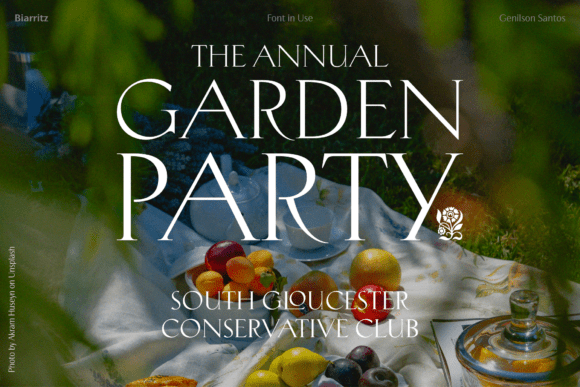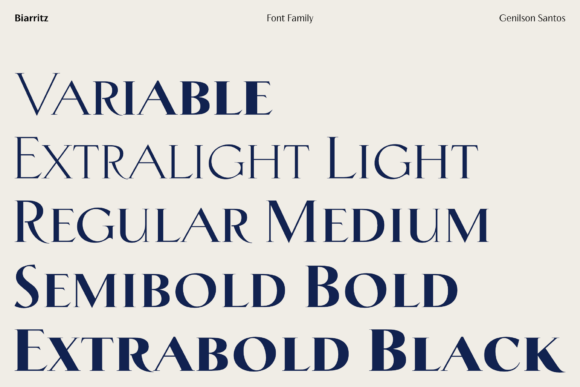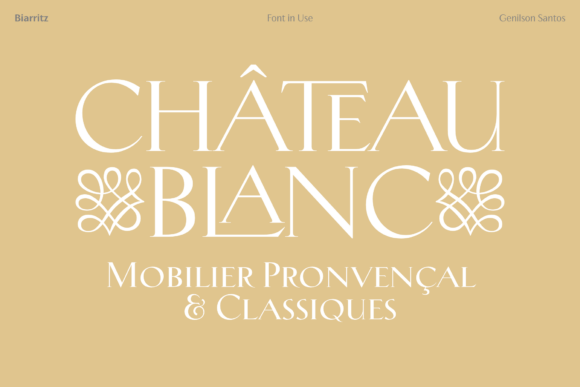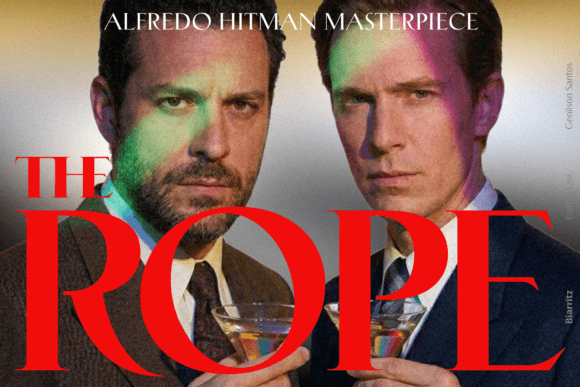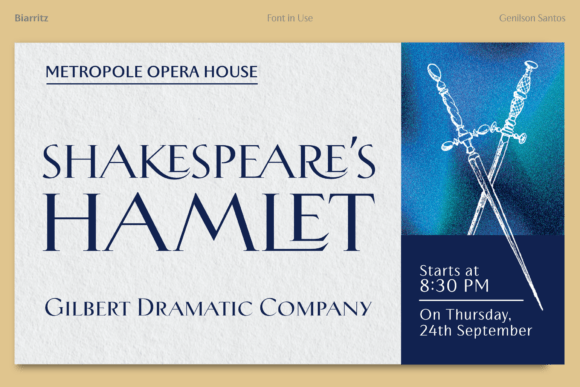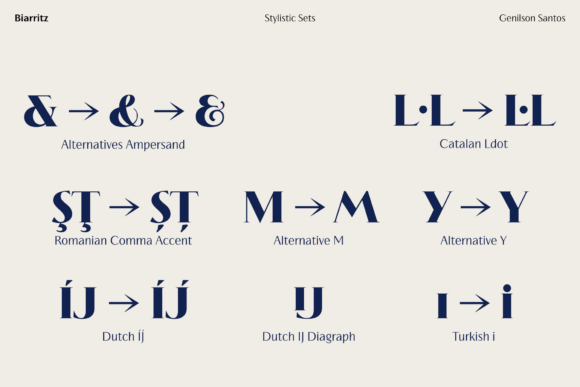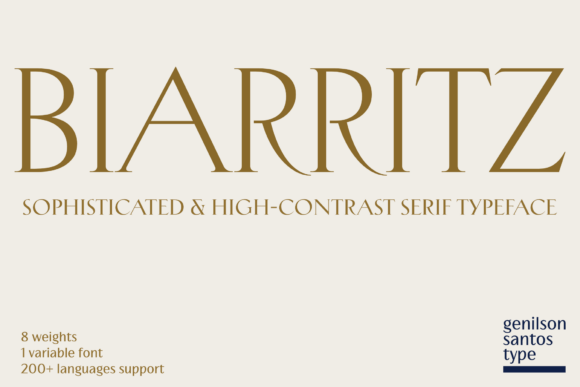
Introducing Biarritz: The Epitome of Luxury Typography
In the realm of typography, few fonts capture the essence of luxury and sophistication as elegantly as Biarritz. This high-contrast serif typeface is meticulously designed for creators who seek to infuse their projects with a touch of high-fashion aesthetics and classic European elegance. Biarritz is not just a font; it’s an experience, a statement of prestige and refinement that elevates any design to new heights of luxury.
The Inspiration Behind Biarritz
Biarritz, named after the luxurious French town known for its opulence and grandeur, draws inspiration from the world of high fashion and classic European sophistication. Its design is a masterful blend of razor-thin hairlines and graceful, sweeping curves, creating a visually stunning contrast that exudes elegance and refinement. This thoughtful design approach makes Biarritz the ultimate “quiet luxury” font, perfect for those who appreciate subtle yet powerful expressions of luxury.
Design Characteristics of Biarritz
Biarritz is characterized by its high contrast between thick and thin strokes, a feature that gives it a dramatic and luxurious appearance. The font’s serif design adds a classic touch, reminiscent of traditional European typography, while its razor-thin hairlines introduce a modern, sophisticated element. The graceful curves of Biarritz’s letters ensure a fluid and harmonious look, making it exceptionally versatile for various design applications.
Applications of Biarritz
Biarritz’s versatility and luxurious aesthetic make it an ideal choice for a range of design projects. Here are some of the key applications where Biarritz truly shines:
- Logos: Biarritz can help create memorable and impactful logos that convey luxury, sophistication, and elegance. Its unique design ensures that logos stand out, making a lasting impression on viewers.
- Editorial Headers: For magazines, newspapers, and digital publications, Biarritz offers a stylish and authoritative look, perfect for headlines and titles that need to capture attention and convey prestige.
- High-End Packaging: Biarritz brings a touch of luxury to product packaging, making it suitable for high-end brands that want to stand out on store shelves and communicate their premium status.
Why Choose Biarritz?
In a world where typography plays a crucial role in design, Biarritz stands out as a beacon of luxury and sophistication. Here are a few reasons why designers and crafters should consider Biarritz for their projects:
- Unique Aesthetic: Biarritz offers a distinctive look that is both modern and timeless, ensuring that designs stand out in a crowded marketplace.
- Versatility: The font’s adaptability makes it suitable for a wide range of projects, from digital media to print materials.
- Quality and Craftsmanship: Biarritz is designed with meticulous attention to detail, reflecting a high level of craftsmanship and quality.
Biarritz is more than just a typeface; it’s a statement of luxury, a symbol of sophistication, and a tool for designers and crafters to create visually stunning and impactful designs. With its high-contrast design, elegant curves, and versatile applications, Biarritz is poised to become the go-to font for those seeking to capture the essence of luxury in their work. Whether you’re designing a logo, crafting an editorial piece, or creating high-end packaging, Biarritz offers the perfect blend of style, elegance, and prestige to elevate your designs to new heights.
Embrace the luxury, sophistication, and elegance that Biarritz has to offer. Let this exquisite typeface be the cornerstone of your next design project, and experience firsthand how it can transform your creations into masterpieces of luxury typography.